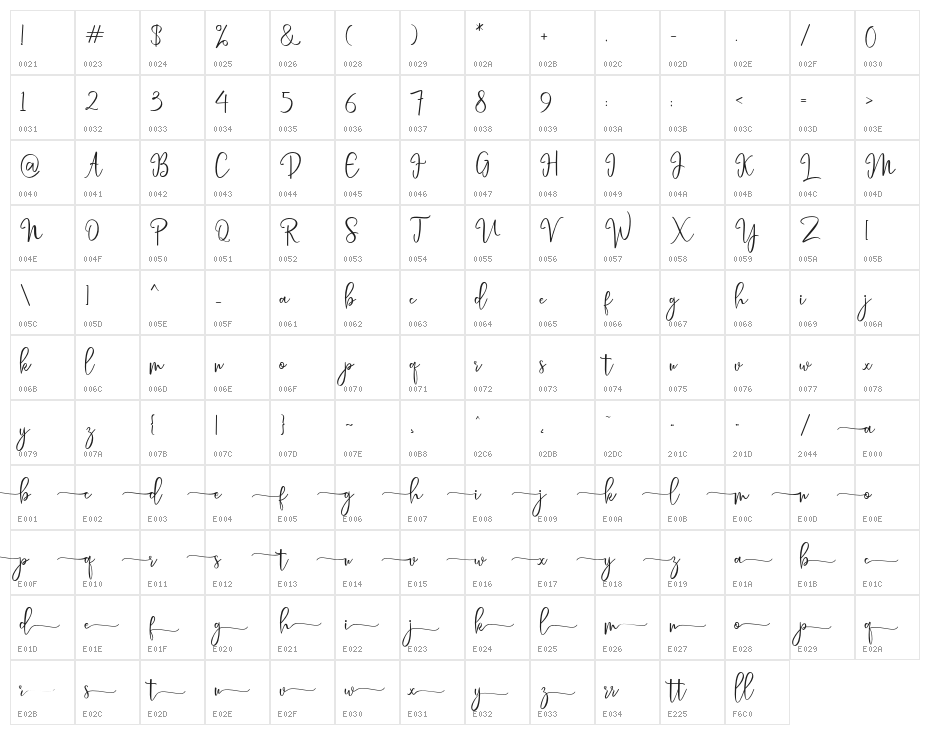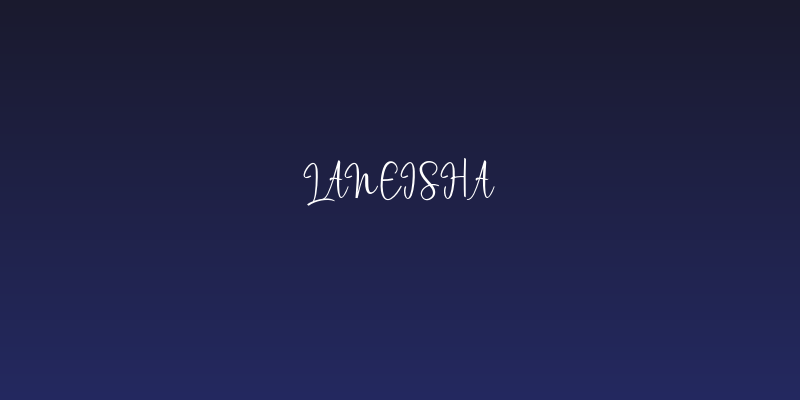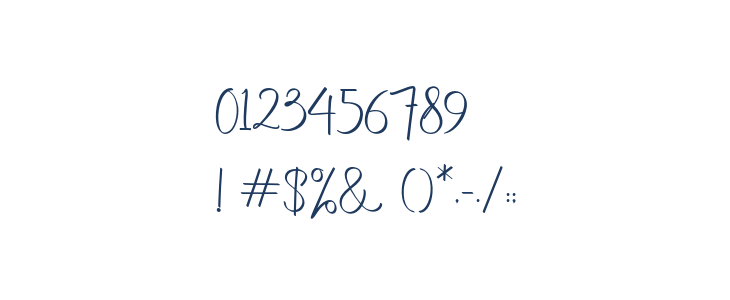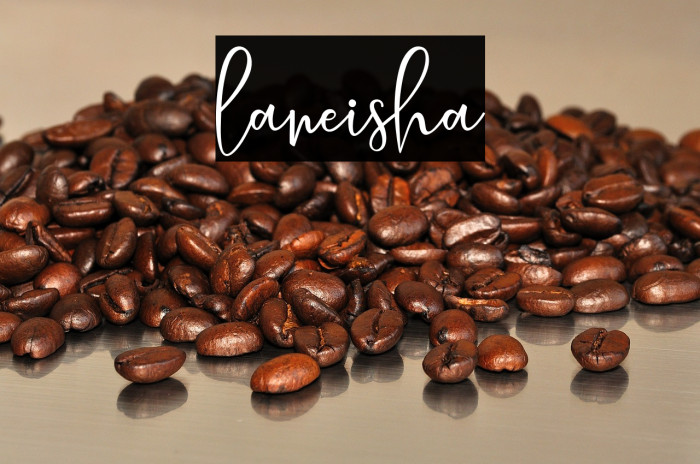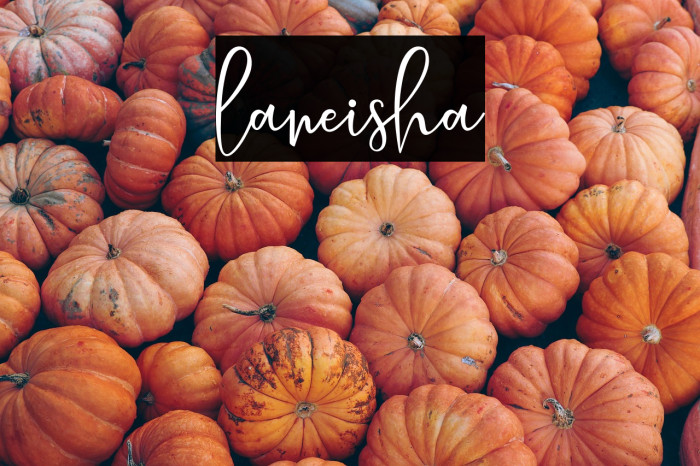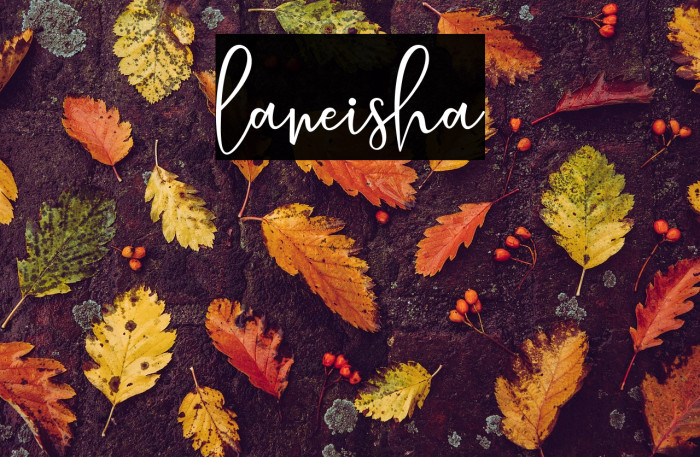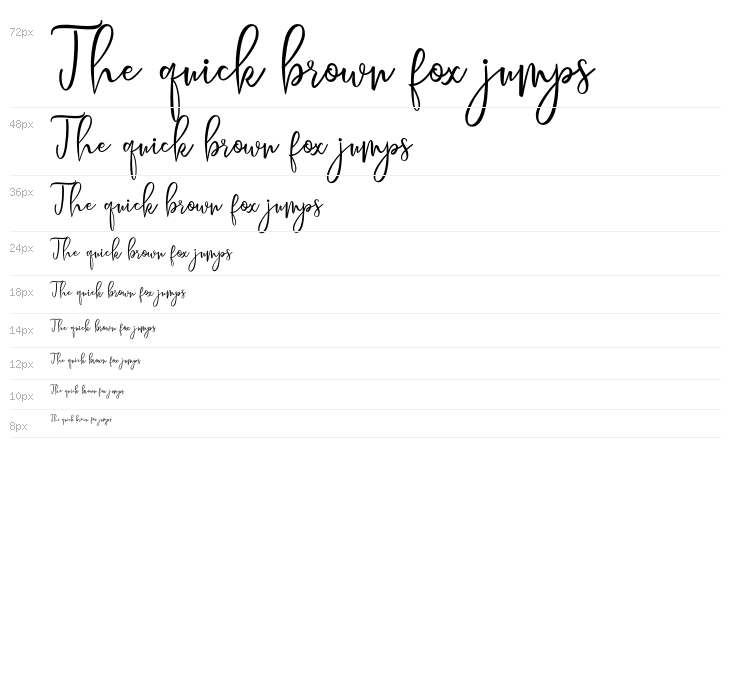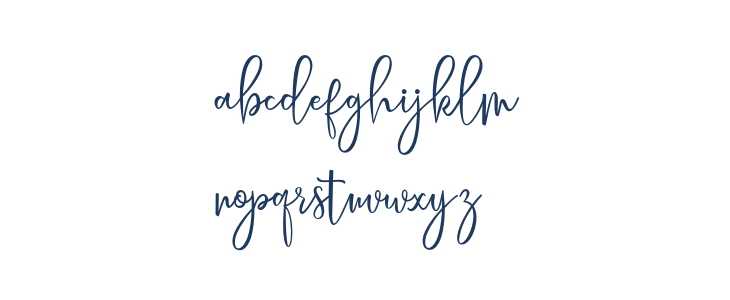
laneisha Font
laneisha Description
This font features a flowing, cursive style that exudes elegance and sophistication. The uppercase letters are tall and slender, with graceful loops and swirls that give them a sense of movement. The lowercase letters maintain a consistent style, with smooth connections between characters, enhancing the script's fluidity. The numerals are designed to match the overall aesthetic, with a slight slant and decorative elements that mirror the letters. Special characters are thoughtfully integrated, maintaining the font's cohesive look. This font is perfect for projects that require a touch of class and personality.